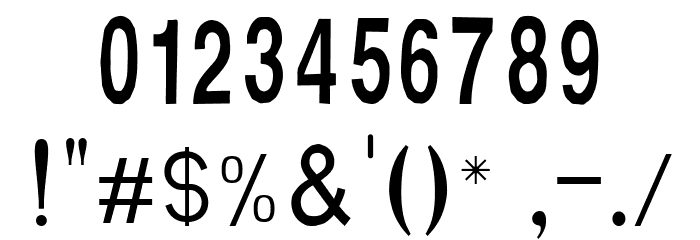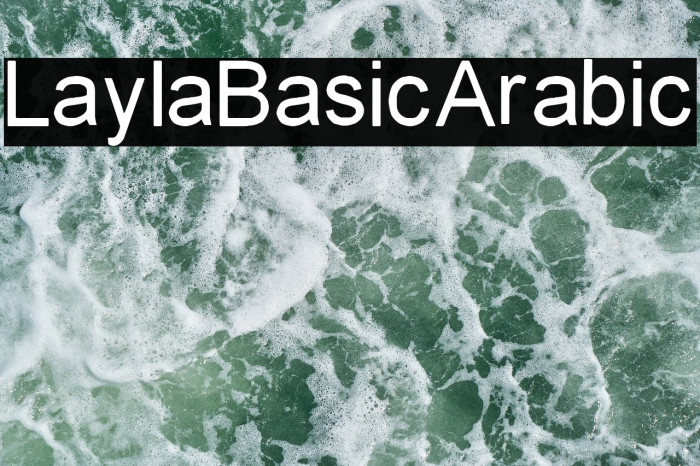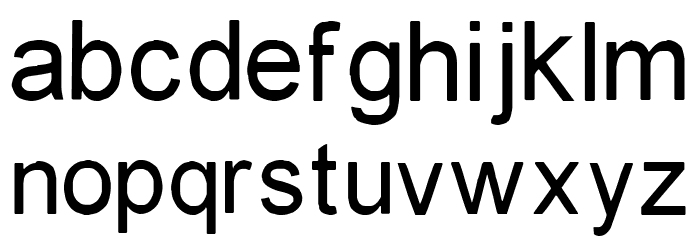
LaylaBasicArabic Font
LaylaBasicArabic Description
This font features a clean and modern sans-serif style, characterized by its simplicity and readability. The uppercase and lowercase letters are well-proportioned, with a consistent stroke width that provides a balanced and harmonious appearance. The numerals are clear and distinct, making them easy to read. Special characters are included, offering versatility for various design needs. The overall design is straightforward, making it suitable for both digital and print media. Its neutral and professional look makes it a great choice for a wide range of applications.